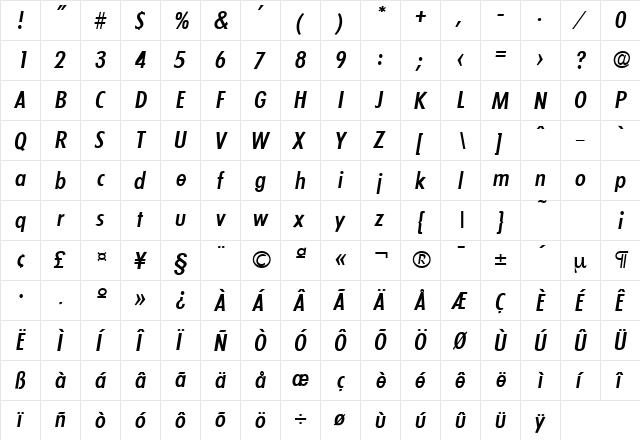
LimerickCond-Serial-Medium RegularItalic
Design Context for LimerickCond-Serial-Medium Typeface
LimerickCond-Serial-Medium is a composed and adaptable typeface that performs quietly and consistently across a wide range of design contexts. Its italic angle brings a sense of urgency and motion to the letterforms. The condensed width makes it efficient for tight spaces without sacrificing legibility.
Pro Tip: Use LimerickCond-Serial-Medium for emphasis, pull quotes, and subheadings where its slanted energy can add rhythm to the layout.